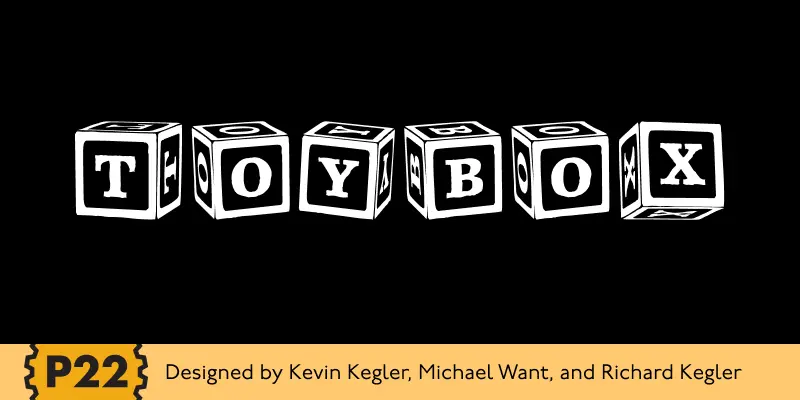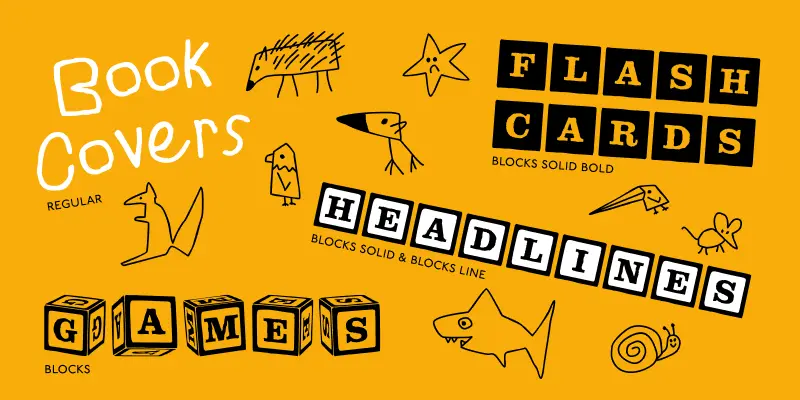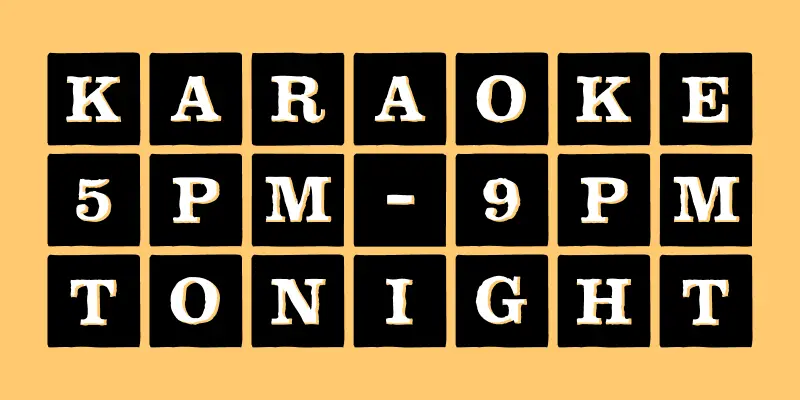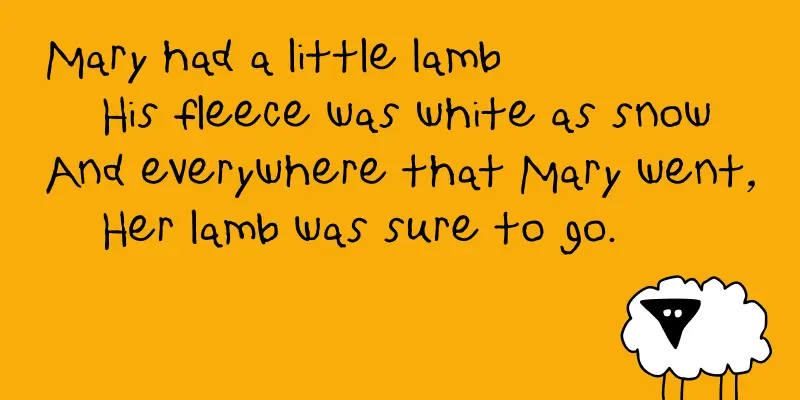
ToyBox Font Family
ToyBox
Return to a simpler age with P22’s ToyBox font, a hand-drawn alphabet by an honest to goodness five-year-old. And since you’ve been very good, P22 also gives you Animals and Blocks to play with. P22 makes creative design as easy as… well, you know the rest.